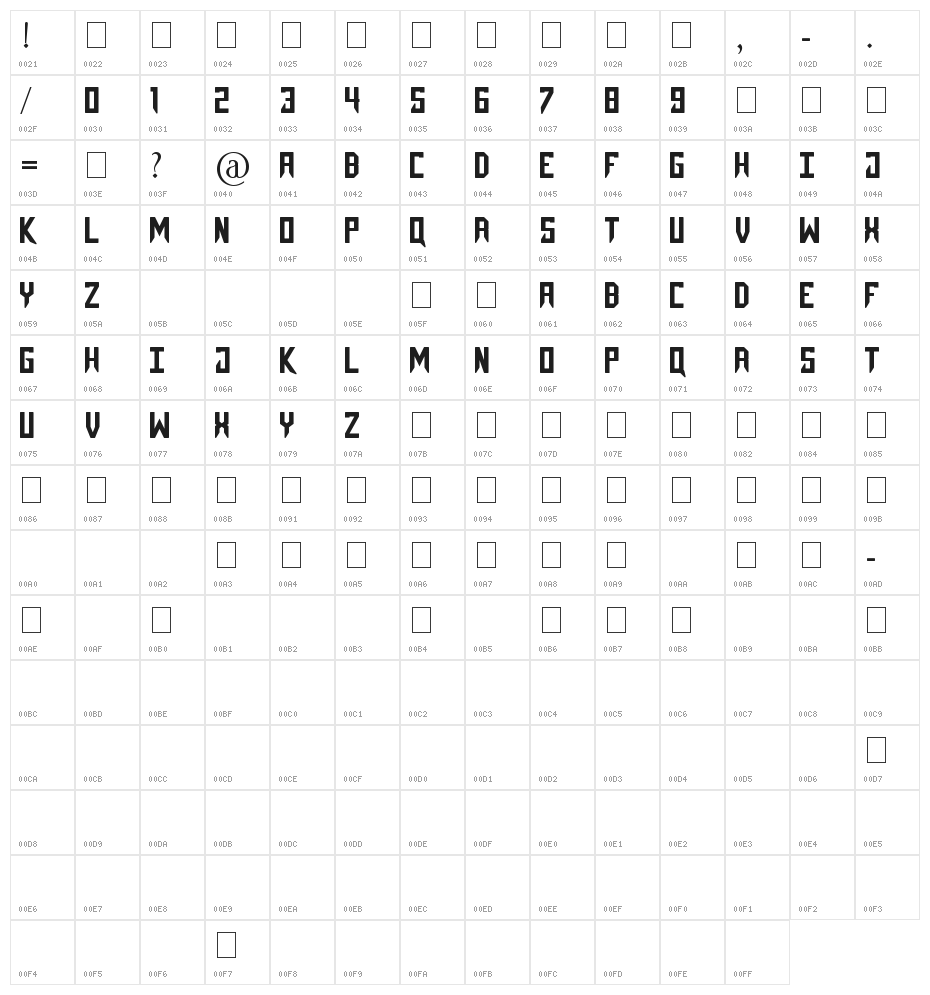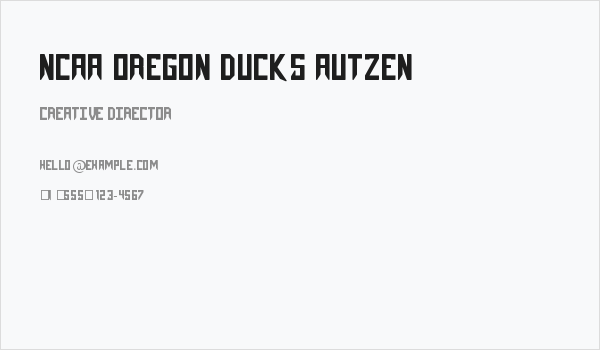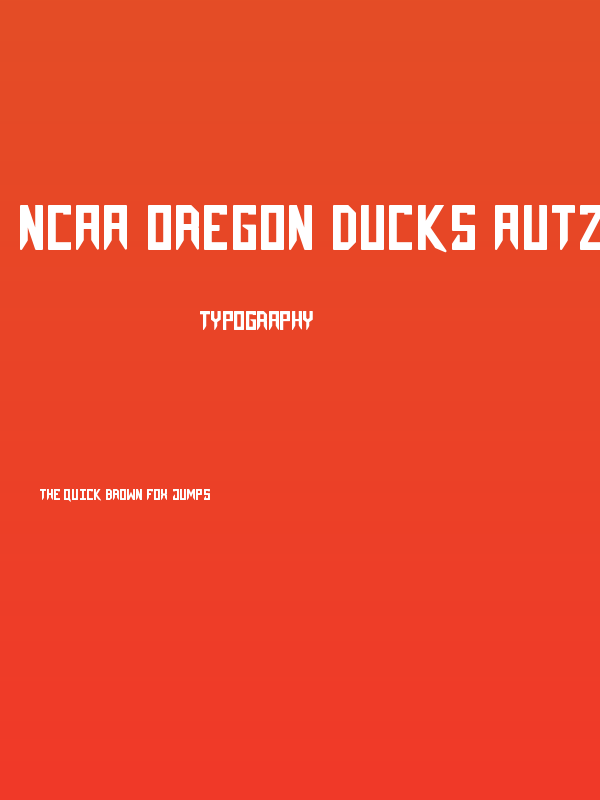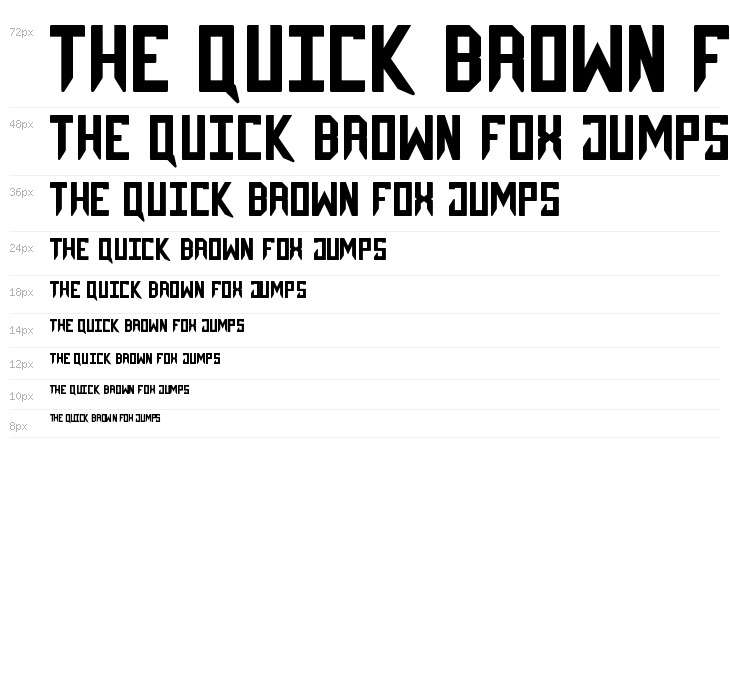
NCAA Oregon Ducks Autzen Font
NCAA Oregon Ducks Autzen Description
This font features a bold, geometric style with sharp, angular edges and a modern, athletic feel. The uppercase letters are uniform in height, with a consistent stroke width that gives a strong, impactful appearance. The numbers and special characters maintain the same boldness, ensuring a cohesive look across all characters. The design is reminiscent of sports team branding, with a focus on clarity and strength. The font's structure is clean and straightforward, making it highly legible even at smaller sizes. Its unique angles and cuts add a distinctive character, setting it apart from more traditional sans-serif fonts.
| Use Case | Logos, Headlines |
| Proposed Projects | Ideal for sports branding, team logos, merchandise, and promotional materials. |